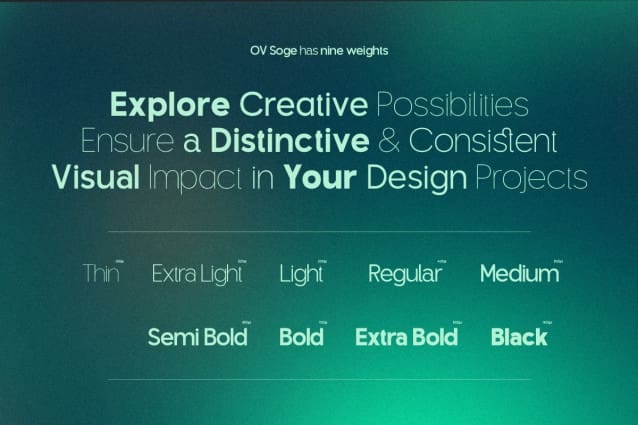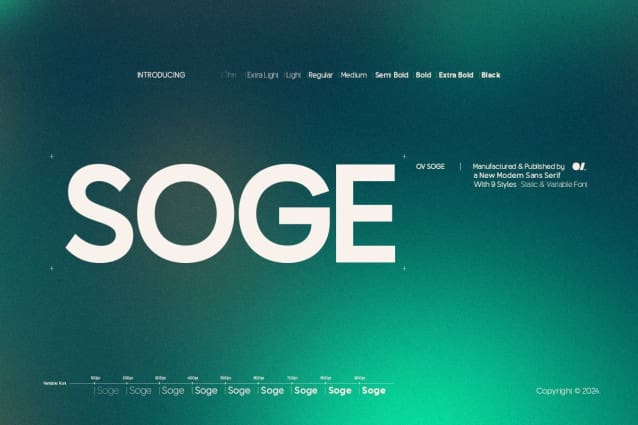
OV Soge Font Family
OV Soge Font Family, a cutting-edge modern sans-serif font that redefines typographic versatility with its innovative variable font features. The name exudes a sense of contemporary style, perfectly aligning with the font’s dynamic and adaptable nature.